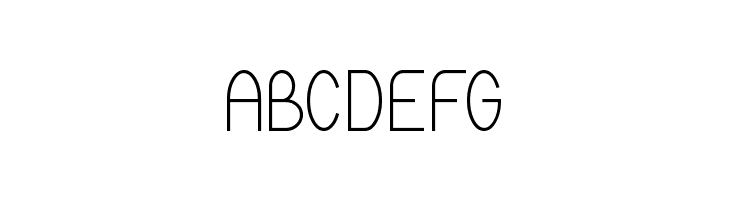
A playful, hand-drawn font with letters in doodled squares and pencil accents.
A playful font with characters designed to look like they are drawn on pencils.
A distressed, textured font with a rugged, vintage appearance.
A playful, hand-drawn font with a casual and friendly vibe.
A playful and whimsical font with bold strokes and rounded terminals.
A playful, handwritten font with quirky, irregular letterforms.
A dotted, playful font with evenly spaced dots forming character outlines.
A dotted line font designed for handwriting practice, featuring clear and consistent character spacing.
A dotted educational font designed for handwriting practice.
A dotted educational font designed for teaching handwriting.
A playful, handwritten-style italic font with smooth, rounded strokes.
A playful, italicized font ideal for educational materials.
A playful, educational font with bold, rounded characters ideal for teaching handwriting.
A playful, rounded font with a handwritten style, ideal for educational materials.
A clean, rounded font with a primary school penmanship style.
A clean, rounded font with a handwritten style, perfect for educational use.
A clear, rounded font ideal for teaching penmanship to young learners.
A playful, handwritten font with a whimsical and friendly style.
A playful, casual handwritten font with smooth, flowing curves.
A playful font with each letter paired with a dog illustration, perfect for fun and creative projects.
A decorative font with characters enclosed in vintage-style frames.
A whimsical, decorative font with letters featuring umbrellas and characters.
A playful handwritten font with rounded, friendly characters and heart-shaped details.
A playful, rounded font with bold, smooth curves and consistent spacing.
A playful, bold outline font with rounded edges and a bubble-like appearance.
A modern, playful font with tall, narrow characters and a monoline appearance.
A playful, bold font with characters enclosed in triangular pennants, perfect for festive designs.
( Fonts by Kimberly Geswein )
A playful and casual script font with flowing, connected letters and smooth, rounded strokes.
A whimsical and ornate script font with flowing, interconnected letters.
A playful, handwritten-style font with flowing, cursive-like strokes.
A playful, hand-drawn font with a casual and friendly appearance.